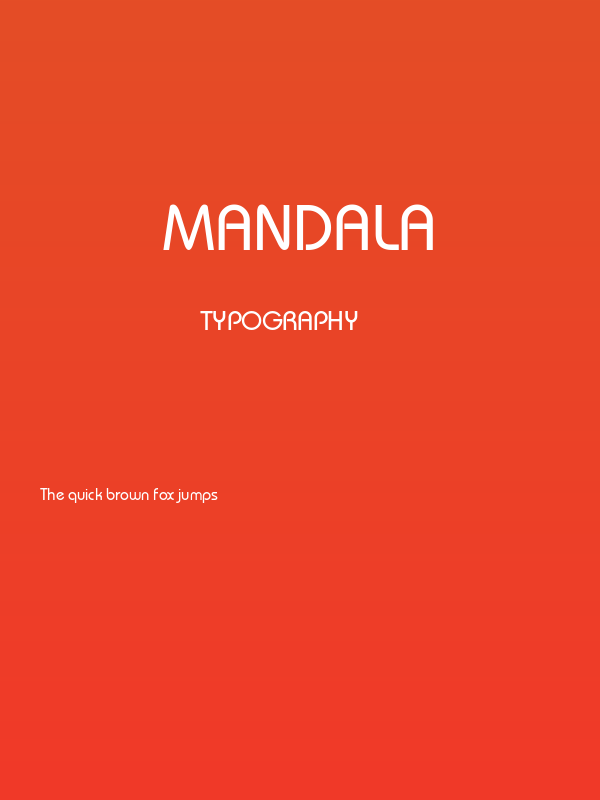
Mandala Font
Mandala Description
This font features a clean and modern sans-serif design with smooth curves and a geometric structure. The characters are evenly spaced, providing a balanced and harmonious appearance. The uppercase letters are bold and assertive, while the lowercase letters maintain a friendly and approachable look. The numerals are clear and easy to read, making them suitable for various applications. Special characters are well-integrated, maintaining the overall aesthetic of the font. This typeface is versatile, offering a contemporary feel that can enhance both digital and print media.
| Use Case | Headlines, Body text, Logos |
| Proposed Projects | Ideal for branding, advertising, web design, and editorial layouts. |